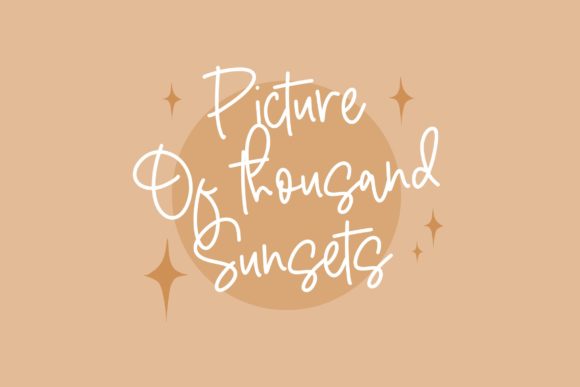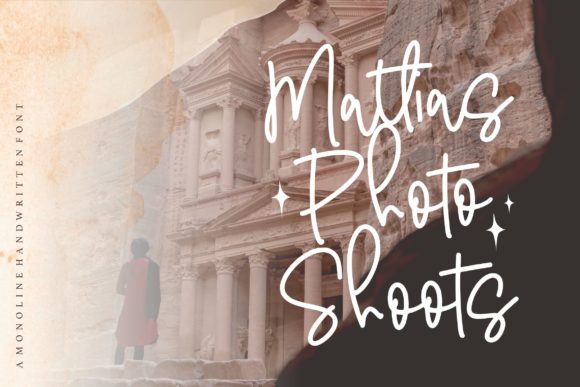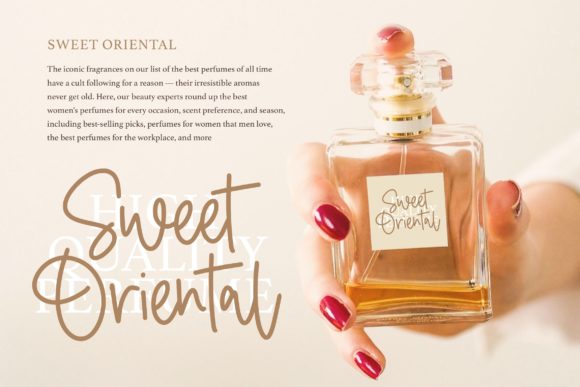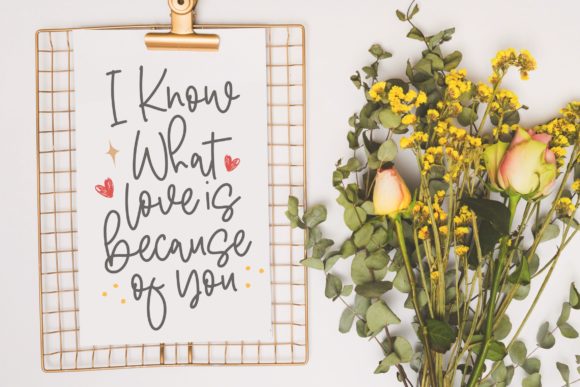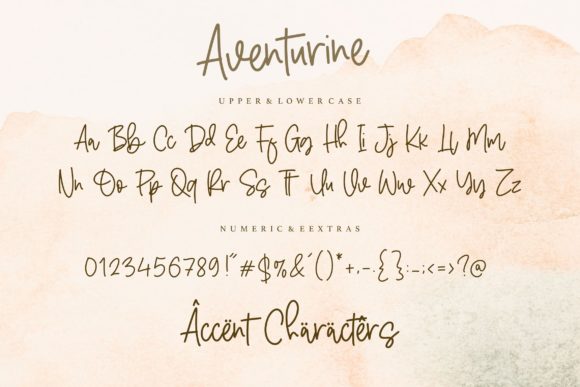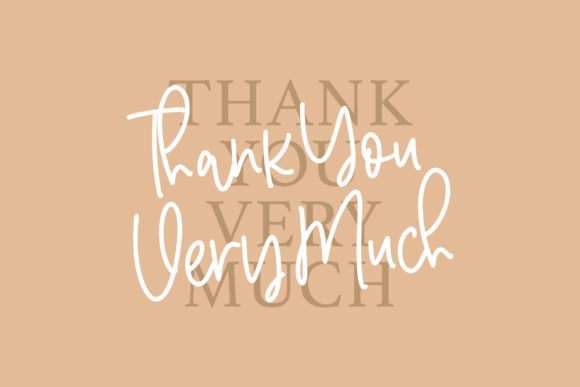
The Perfect Font for Your Next Design Masterpiece
Have you ever sat at your desk, staring blankly at a blank canvas, waiting for the perfect font to come along and bring your design to life? That’s exactly what happened to me, and I’m so glad it did. The spark of creativity that ignited when I stumbled upon the Aventurine Font was nothing short of magical. Its unique, handwritten style is like a breath of fresh air in the world of typography.
As a designer, you know how crucial the right font can be in making your logo, branding, or quote stand out from the crowd. That’s where the Aventurine Font comes in – a game-changer for anyone looking to add a touch of elegance and sophistication to their design. With every letter imbued with its own special charm, this font is sure to make your creations truly unforgettable.
Aventurine Font Key Features
- Unique Characteristics: Aventurine Font features a distinctive, elegant design with intricate details and subtle nuances, making it suitable for high-end branding, publishing, and advertising projects.
Aventurine Font Review
Overall, I’d say Aventurine is a solid, yet not overly impressive, font choice. Here’s a breakdown of what I like and don’t like about it:
- Beautiful, elegant script style that’s perfect for titles, headings, and logotypes.
- Great legibility, even at smaller font sizes.
- Wide range of language support, including Cyrillic and Greek alphabets.
- Available in various weights and styles, including bold and italic.
- May not be the best choice for body text due to its decorative nature.
- Lack of a clear, sans-serif counterpart for when you need a more neutral font.
- Some users may find the script style too ornate or distracting.
In conclusion, Aventurine is a nice addition to any designer’s toolkit, but it’s not a go-to font for everyday use. It’s perfect for projects that require a touch of elegance and sophistication, but it may not be the best choice for more straightforward designs.
Tips for Getting the Most Out of Aventurine Font
For optimal results, use the Aventurine font in combination with other elegant and sophisticated designs. Experiment with different font sizes and styles to create visually appealing text effects. Avoid using the Aventurine font in small sizes or with low-quality images.
The Aventurine font is commonly used in luxury branding, high-end marketing materials, and elegant website designs. It is particularly suitable for use in titles, headings, and body text where a sophisticated and refined look is desired.
Alternatives to Aventurine Font for Designers
Playfair Display is a luxurious serif font ideal for high-end designs, such as luxury branding, invitations, and editorial content. It’s perfect for creating a sophisticated and elegant atmosphere.
Comparison to Aventurine Font: While Aventurine Font is elegant, Playfair Display is more opulent and refined. Aventurine Font is suitable for everyday use, while Playfair Display is best reserved for special occasions.